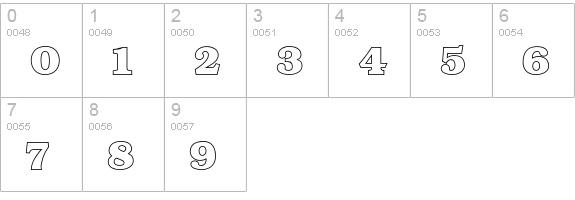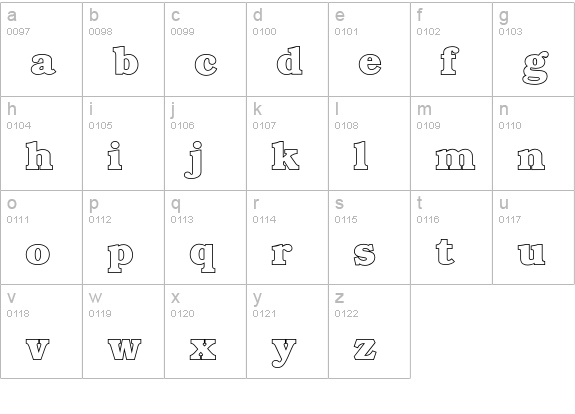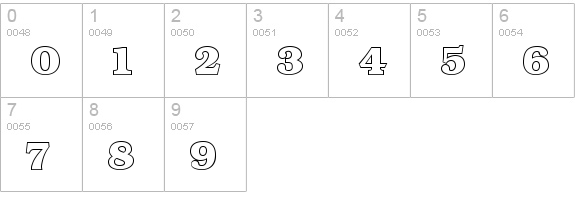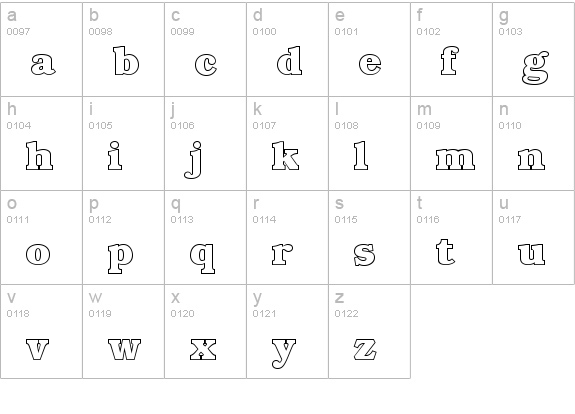
BookmanOutline Font Details
BookmanOutline font is a classic and elegant typeface that exudes sophistication and style. With its clean lines and timeless appeal, this font is perfect for a wide range of design projects, from invitations and posters to logos and branding materials. The outline version of the Bookman font adds a modern twist, making it stand out while maintaining its traditional charm. The best part is that BookmanOutline font is available for free download at FontsMarket.com. This means you can easily access this versatile and stylish font to elevate your designs without any cost. Don't miss out on the opportunity to enhance your projects with the beauty and versatility of BookmanOutline font, now freely available for download.